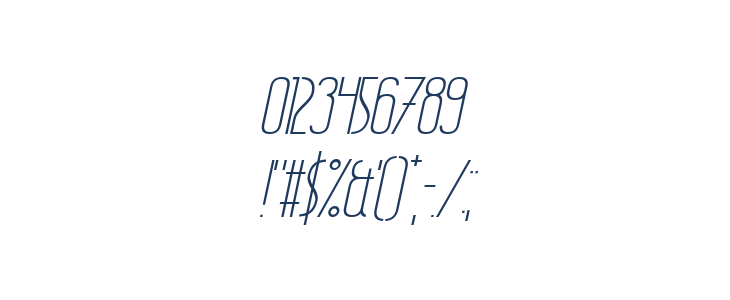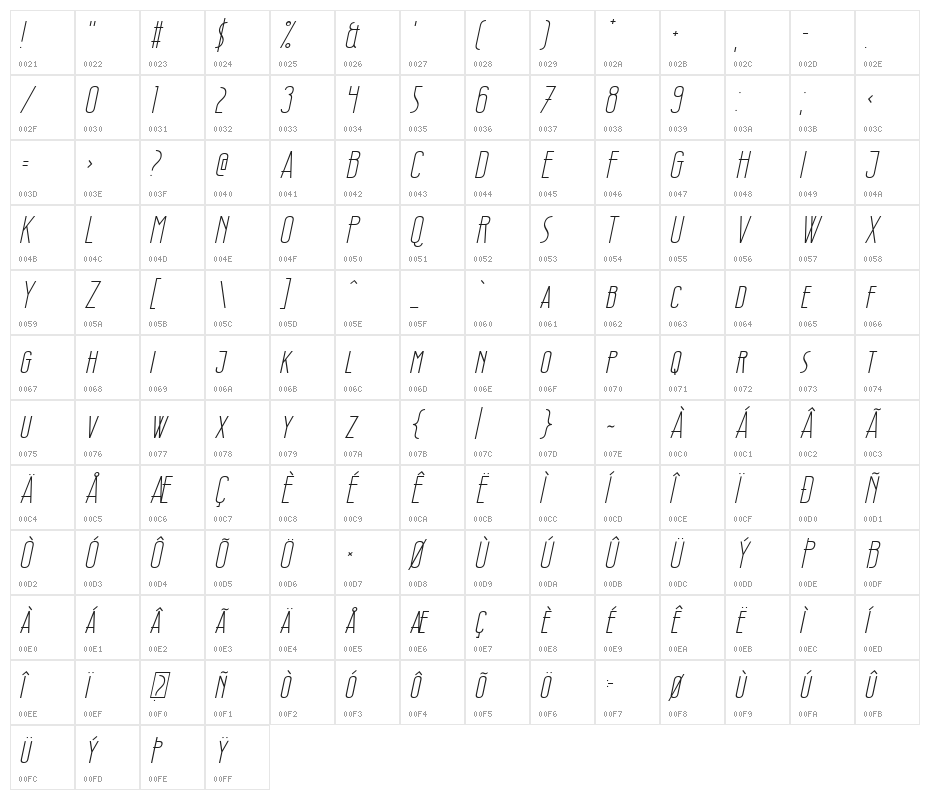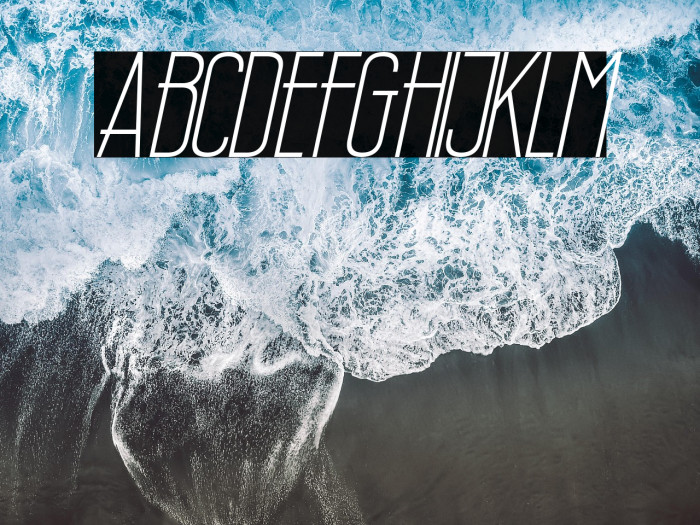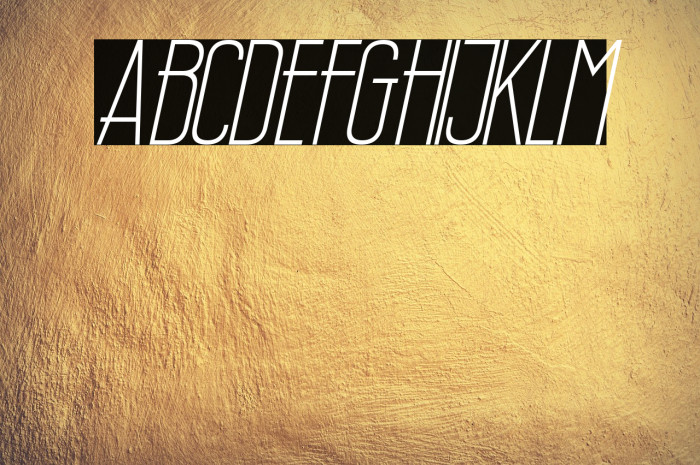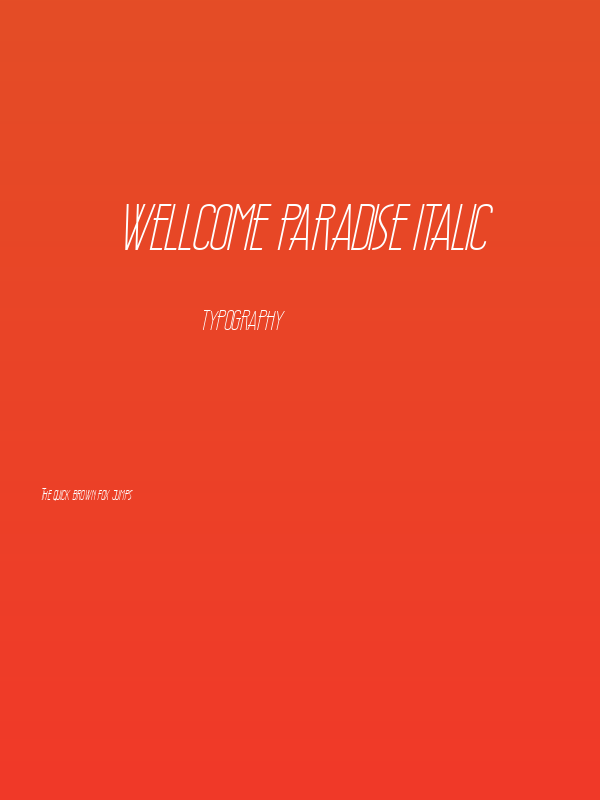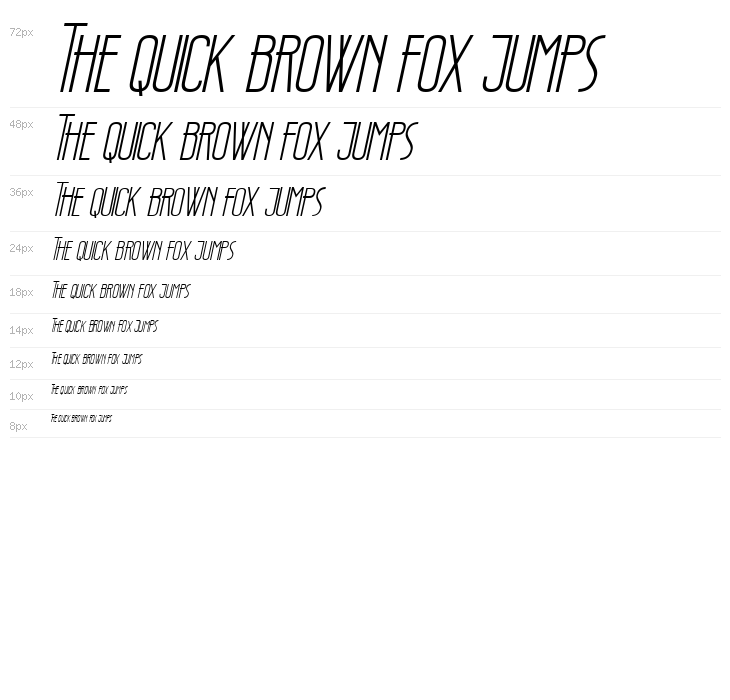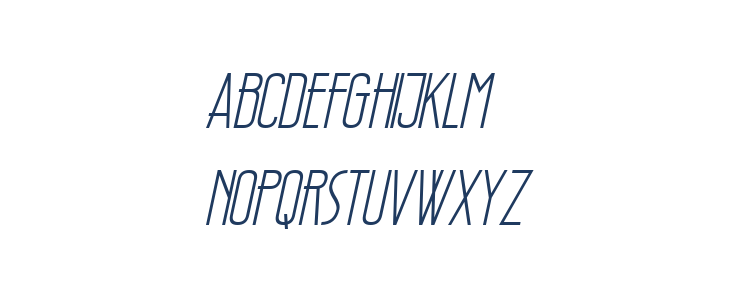
Wellcome Paradise Italic Font
Wellcome Paradise Italic Description
This font features a sleek, modern design with a distinct italic slant, giving it a dynamic and forward-moving appearance. The characters are elongated and narrow, contributing to a condensed look that maintains readability. The strokes are consistent in weight, providing a uniform appearance across all characters. The font includes a full set of uppercase and lowercase letters, numbers, and a variety of special characters, making it versatile for different types of projects. Its clean lines and contemporary style make it suitable for modern design applications.